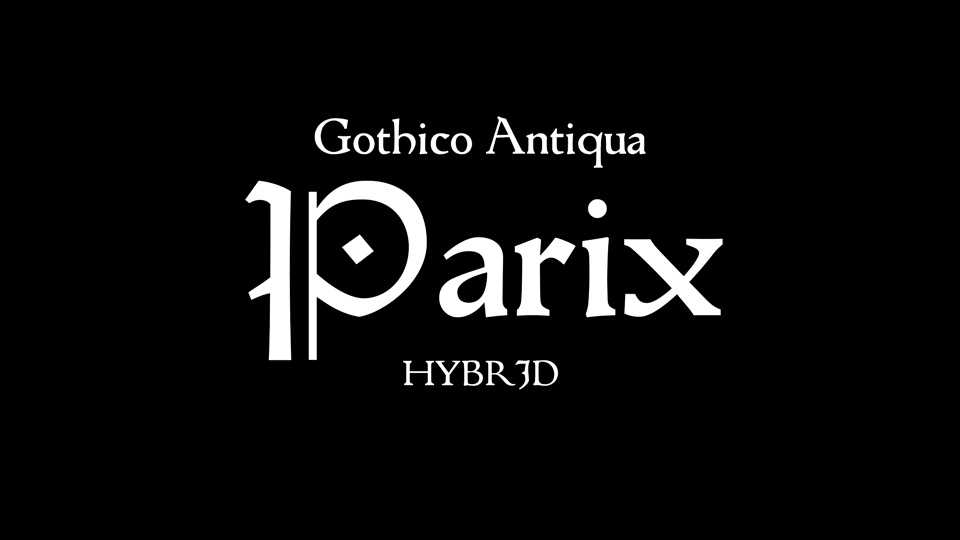
Download Parix font, Hybrid cut in Toulouse by Johann Parix for Rodericus Zamorensis’ Speculum vitae humanae, around 1475 (exact date unknown) and used until 1481. Type design workshop at ISDAT Toulouse and Bibliothèque municipale de Toulouse, February 2018.
Designer: ANRT Type